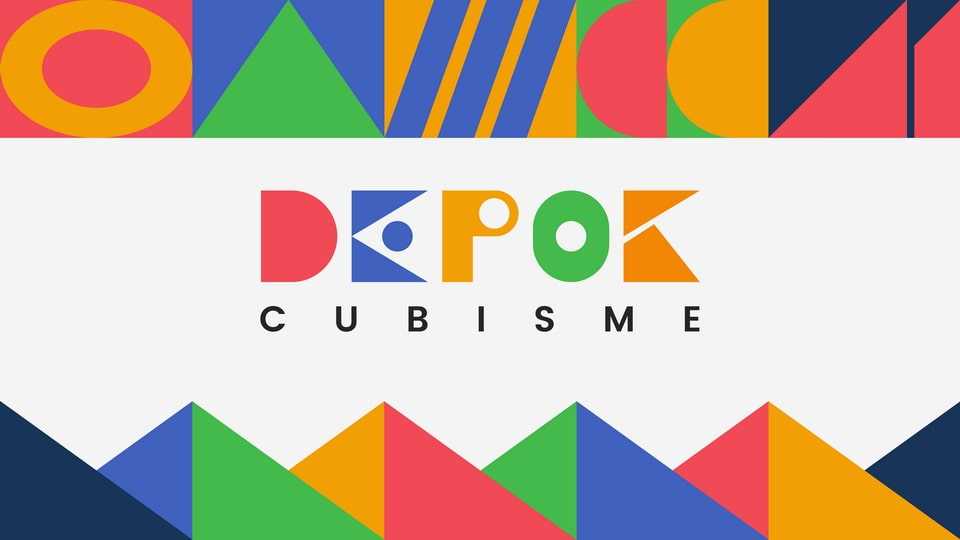
Download Depok Cubisme font, a cutting-edge display typeface crafted from simple geometric shapes. This font is a project to introduce the names of regions in Indonesia.
Designer: Matthew Diki